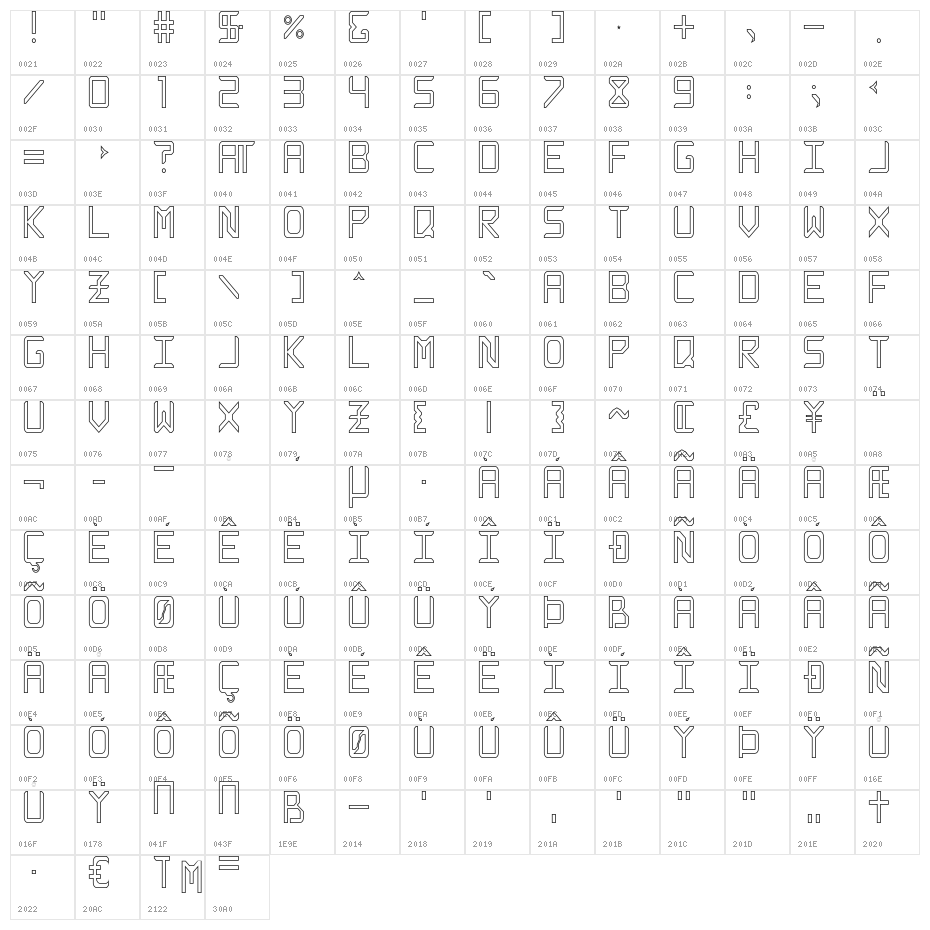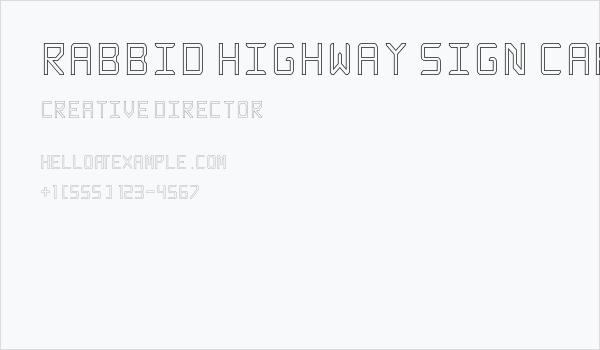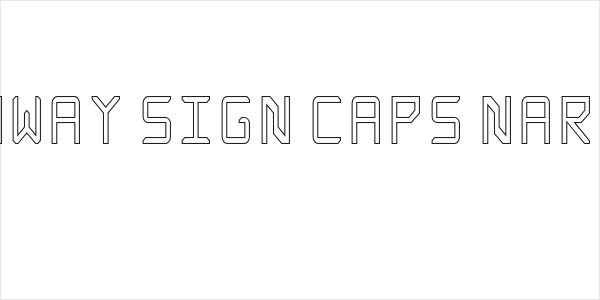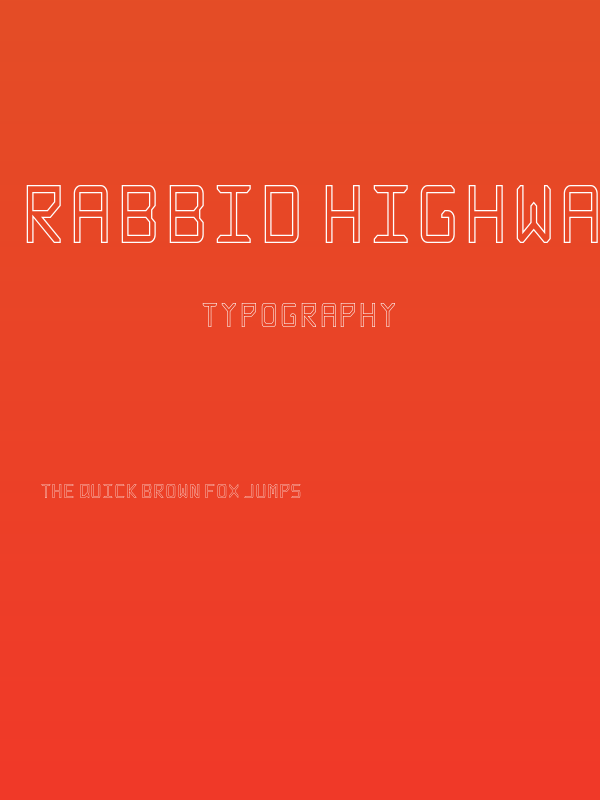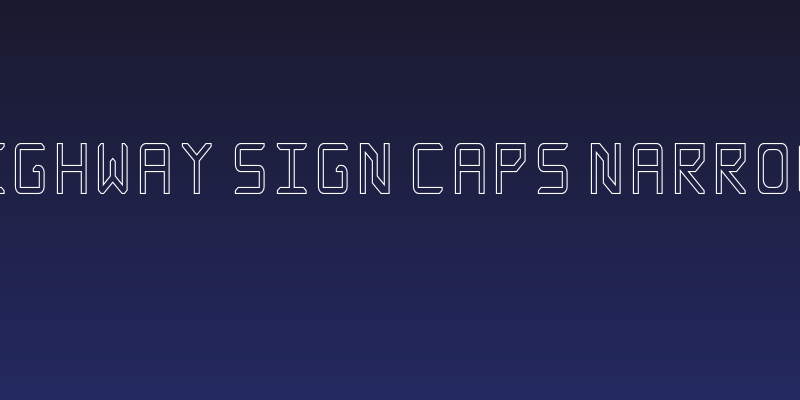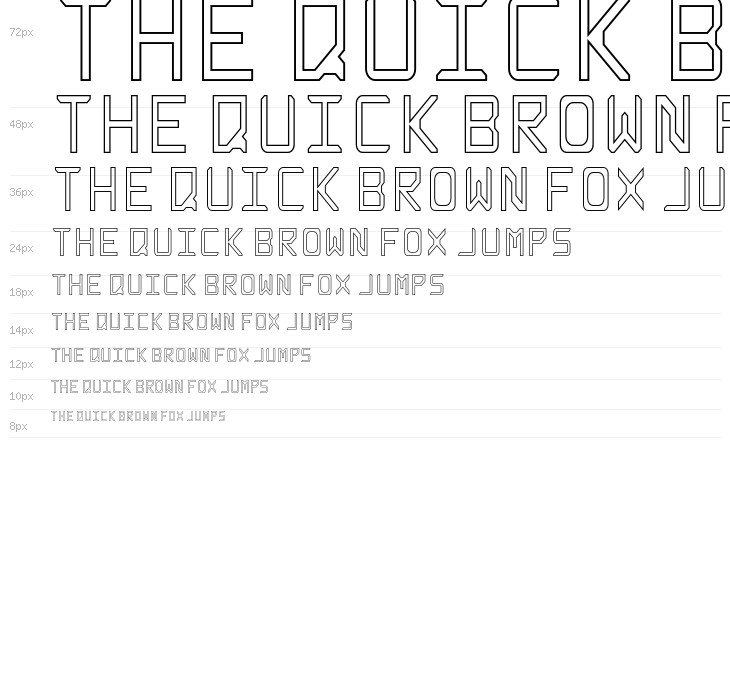
Rabbid Highway Sign Caps Narrow Outline Font
Rabbid Highway Sign Caps Narrow Outline Description
This font features a geometric, outline style with a narrow and angular design. Each character is constructed with clean, straight lines and sharp corners, giving it a modern and technical appearance. The uppercase letters are uniform in height, maintaining a consistent baseline and cap height, which enhances readability. The numerals and special characters follow the same structured outline, ensuring a cohesive look across all glyphs. The font's minimalistic approach, with its open interior spaces, makes it suitable for digital displays and signage where clarity and precision are paramount.
| Use Case | Headlines, Logos, Signage |
| Proposed Projects | Ideal for digital displays, highway signage, technical manuals, and futuristic design projects. |